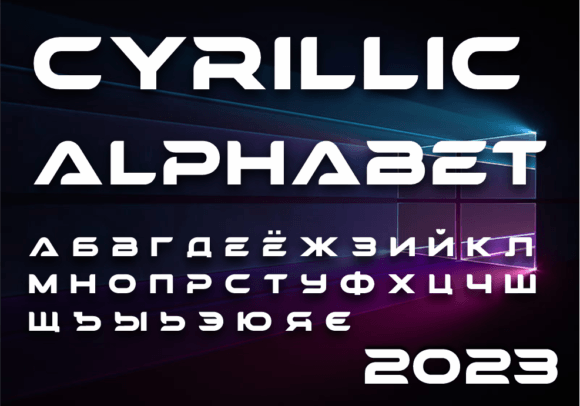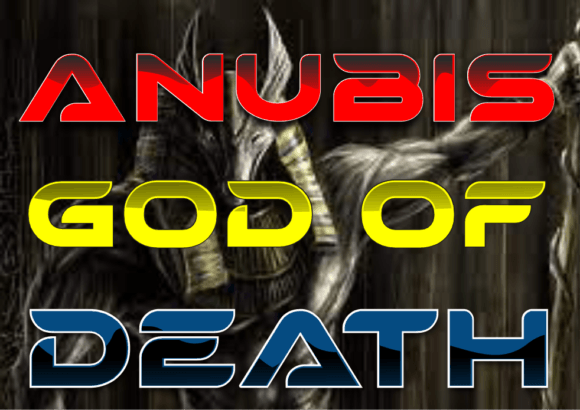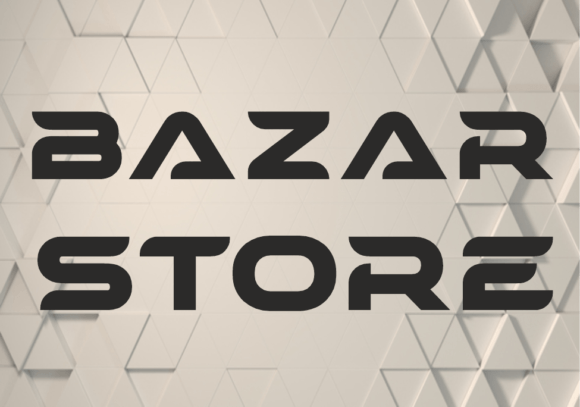
Unleash Your Creativity with Canavar Font: A Bold and Stunning Display Font
Are you tired of using the same old fonts in your designs? Do you want to add a powerful touch to your favorite projects? Look no further than Canavar Font, a cool and stunning display font that’s perfect for designers and crafters alike. With its modern and bold vibe, Canavar Font is sure to take your designs to the next level.
What is Canavar Font?
Canavar Font is a display font that’s designed to make a statement. Its bold and modern design makes it perfect for use in a variety of projects, from posters and flyers to logos and branding materials. The font is characterized by its clean lines, sharp edges, and bold typography, giving it a powerful and eye-catching appearance.
Key Features of Canavar Font
So what makes Canavar Font so special? Here are just a few of its key features:
- Bold and Modern Design: Canavar Font has a bold and modern design that’s perfect for making a statement.
- Clean Lines and Sharp Edges: The font features clean lines and sharp edges, giving it a crisp and professional appearance.
- Highly Versatile: Canavar Font can be used in a variety of projects, from posters and flyers to logos and branding materials.
- Easily Readable: Despite its bold design, Canavar Font is still highly readable, even at smaller sizes.
How to Use Canavar Font in Your Designs
Canavar Font is incredibly easy to use in your designs. Here are a few tips to get you started:
- Use it as a Title Font: Canavar Font is perfect for use as a title font in posters, flyers, and other designs.
- Add it to Your Logo: The font’s bold and modern design makes it a great choice for use in logos and branding materials.
- Experiment with Different Colors: Canavar Font looks great in a variety of colors, so don’t be afraid to experiment and find the perfect color for your design.
Benefits of Using Canavar Font
So why should you choose Canavar Font for your designs? Here are just a few of the benefits of using this amazing font:
- Adds a Powerful Touch: Canavar Font adds a powerful and bold touch to your designs, making them stand out from the crowd.
- Highly Versatile: The font can be used in a variety of projects, making it a great addition to your font library.
- Easily Readable: Despite its bold design, Canavar Font is still highly readable, making it perfect for use in a variety of projects.
- What is Canavar Font?: Canavar Font is a display font that’s designed to make a statement with its bold and modern design.